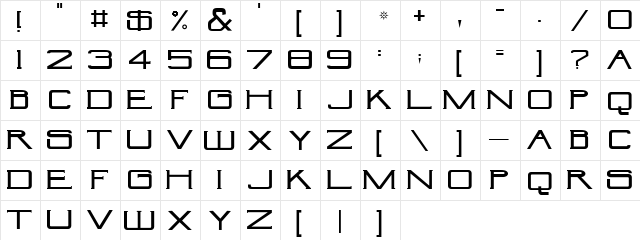
CultLove Regular Regular
Design Context for CultLove Regular Typeface
CultLove Regular offers clean, dependable letterforms without strong stylistic allegiance, making it a practical choice for designers who need flexibility.
Pro Tip: Pair CultLove Regular with a font of contrasting weight or personality to build a more expressive typographic hierarchy.